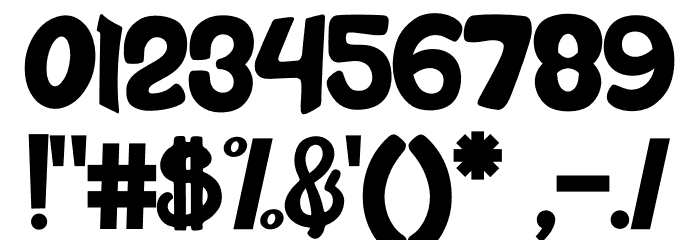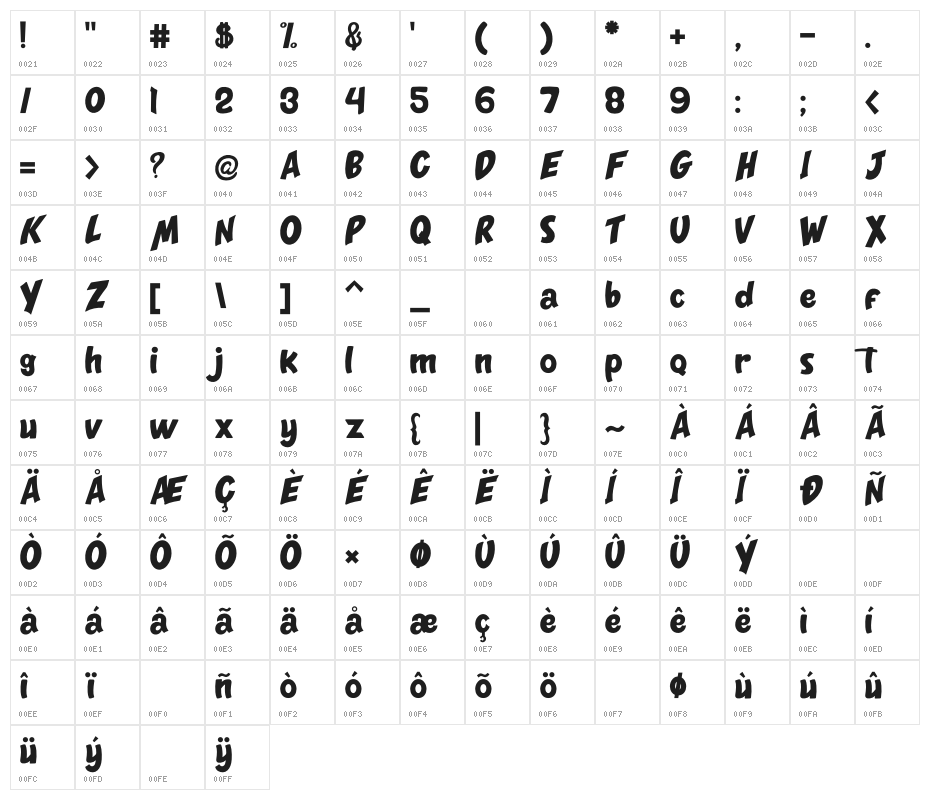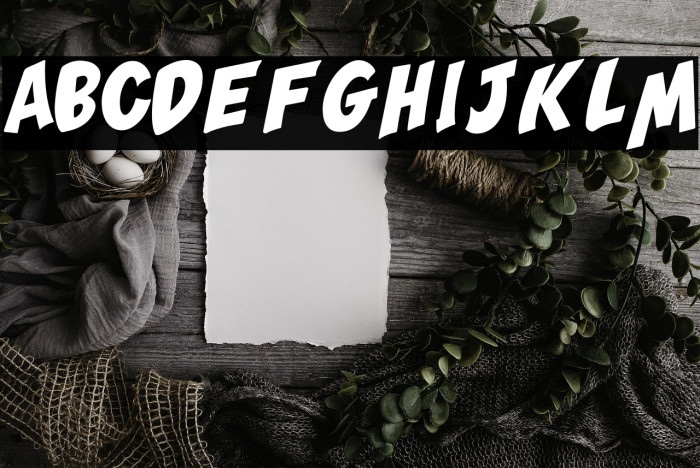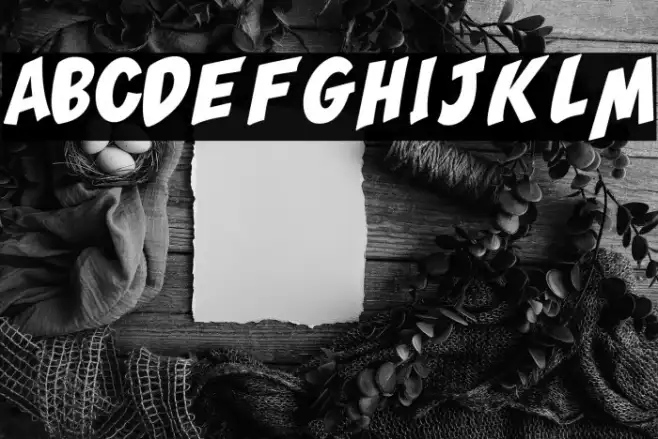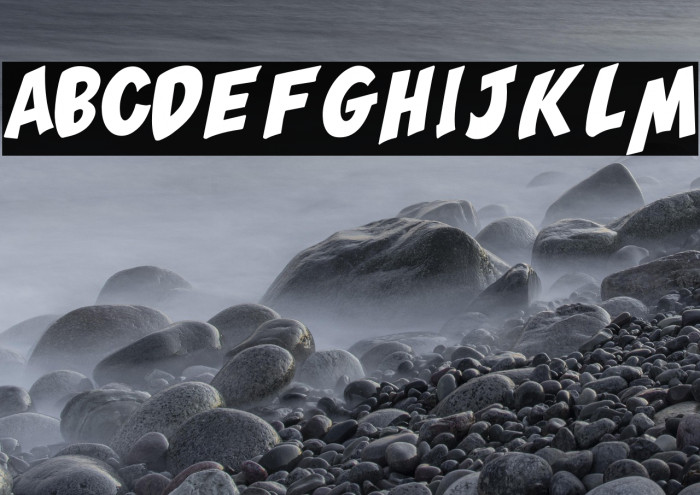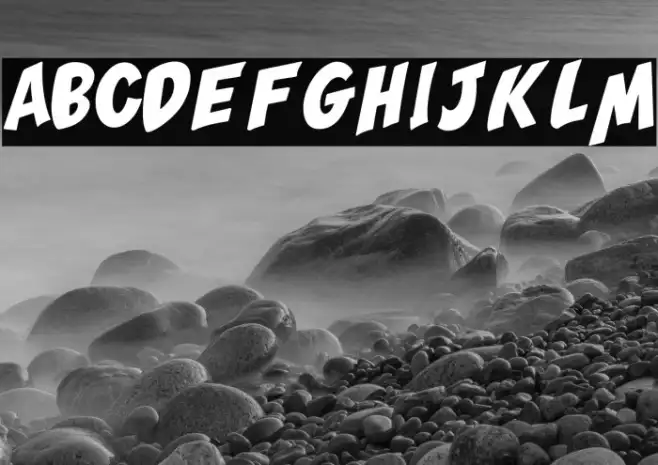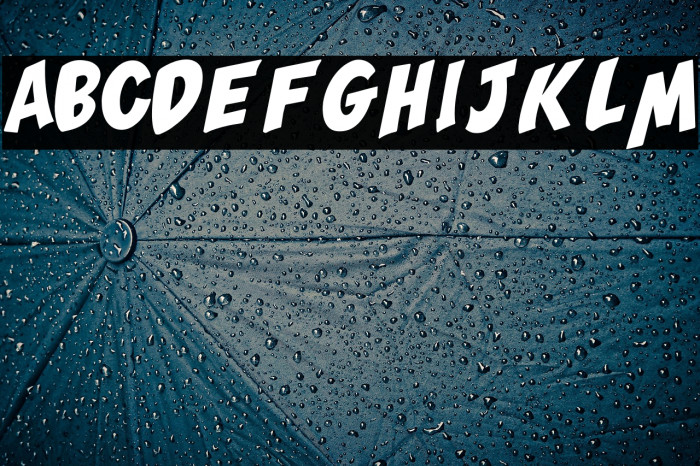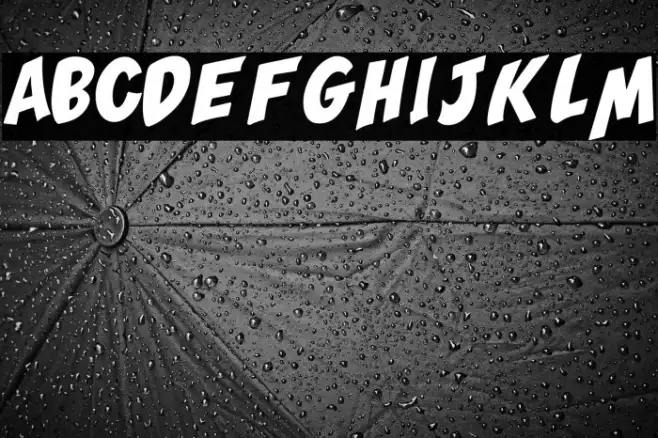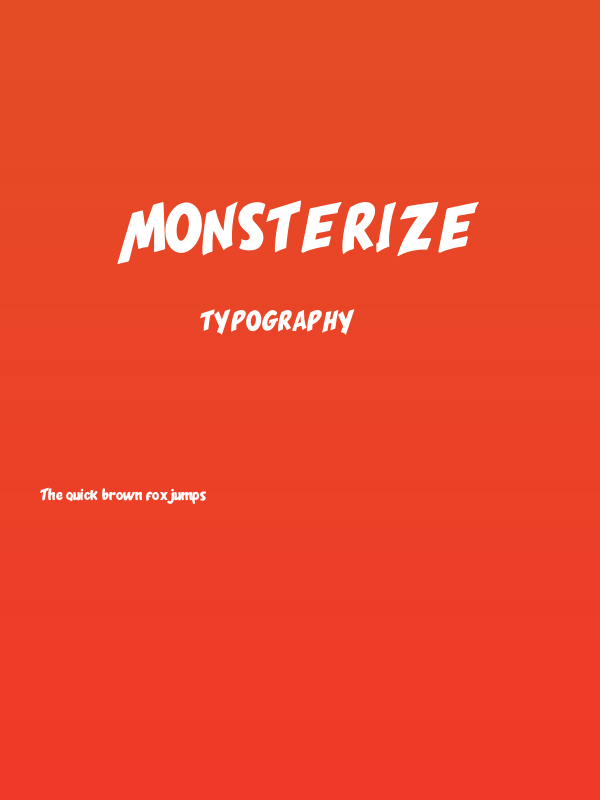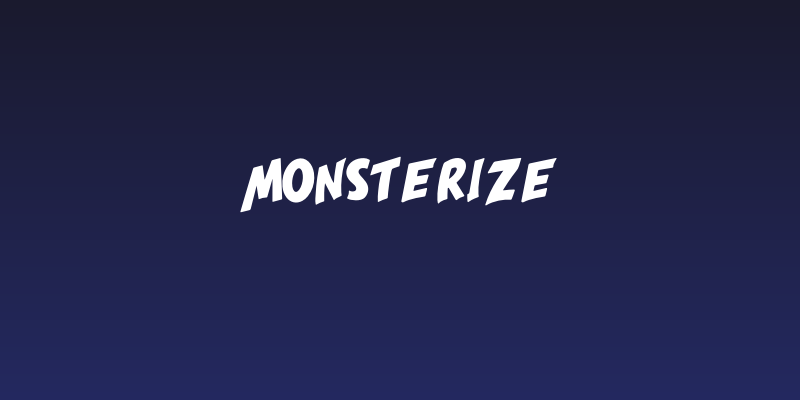
Monsterize Font
Monsterize Description
This font features a bold and playful design with exaggerated curves and a slightly irregular baseline, giving it a whimsical and dynamic appearance. The letters are thick and rounded, with a cartoonish style that adds a sense of fun and energy. The uppercase and lowercase characters maintain a consistent style, while the numerals and special characters complement the overall look with their bold and quirky shapes. This font is perfect for projects that require a lively and eye-catching typeface.
| Overall Style | Playful, Cartoonish |
| Proposed Projects | Ideal for children's books, comic strips, playful branding, and event posters. |